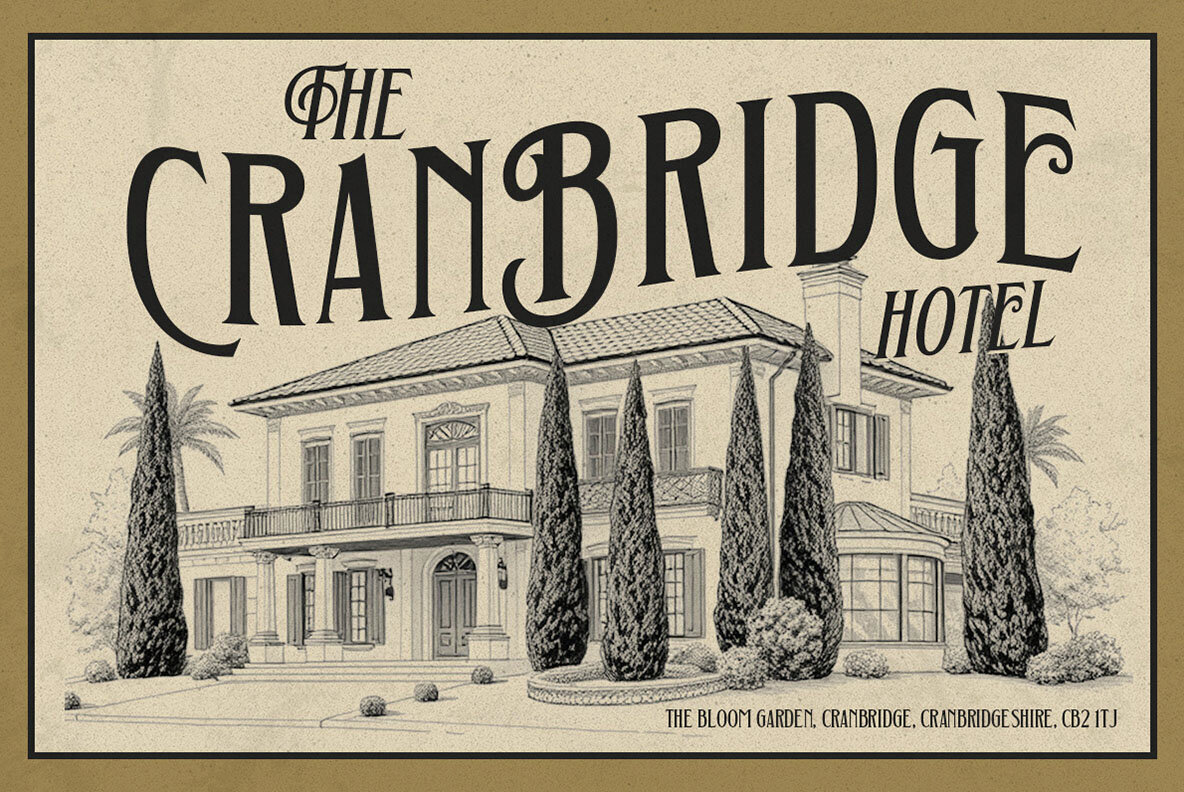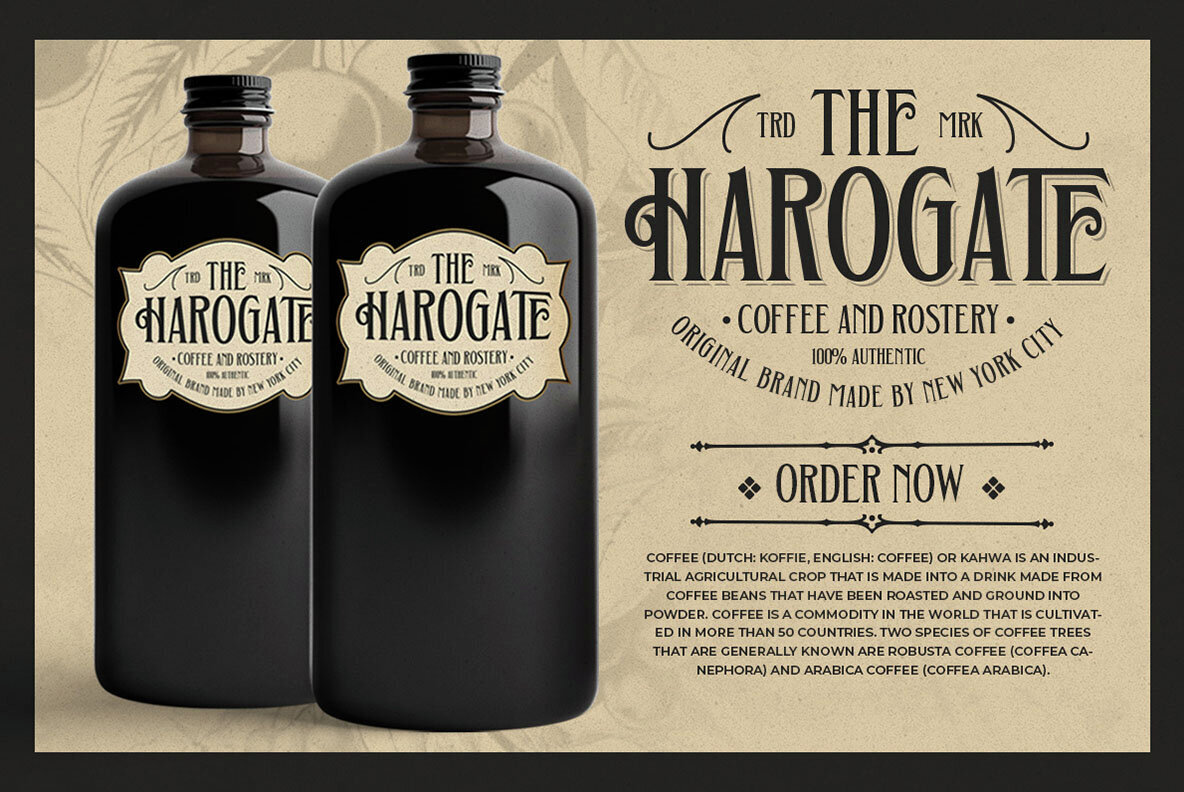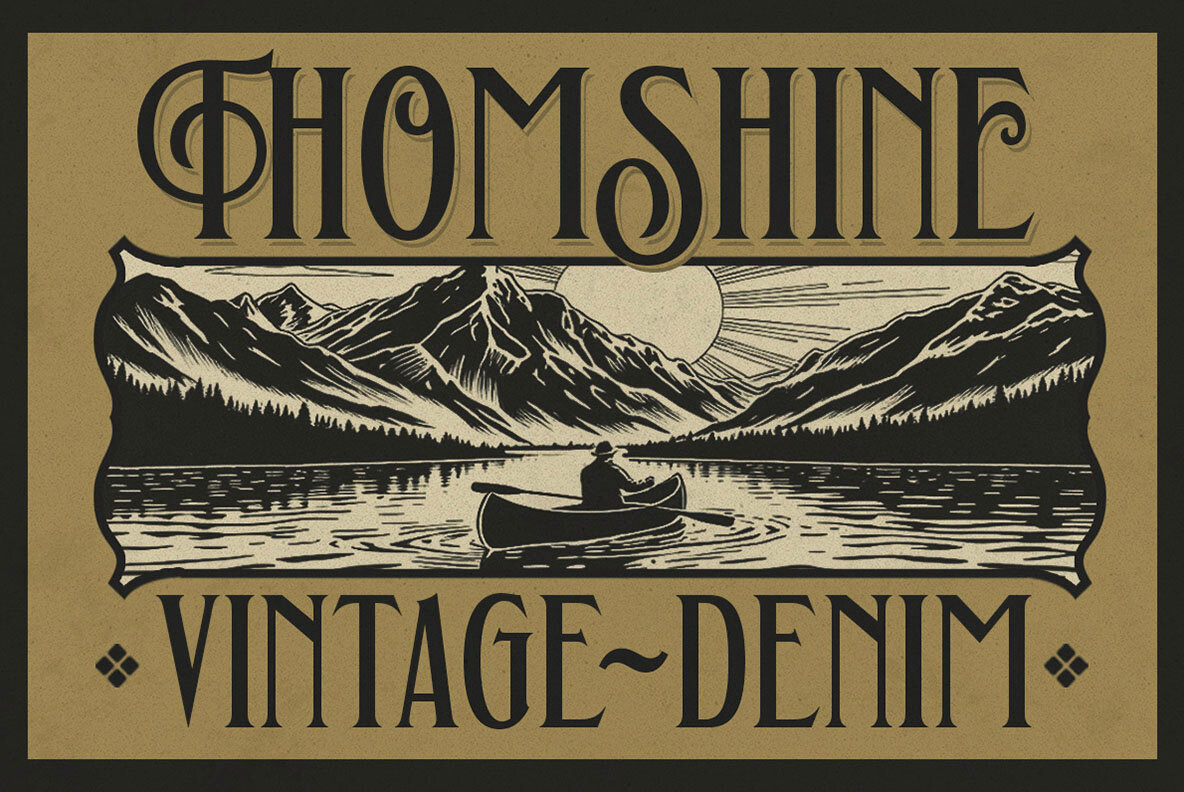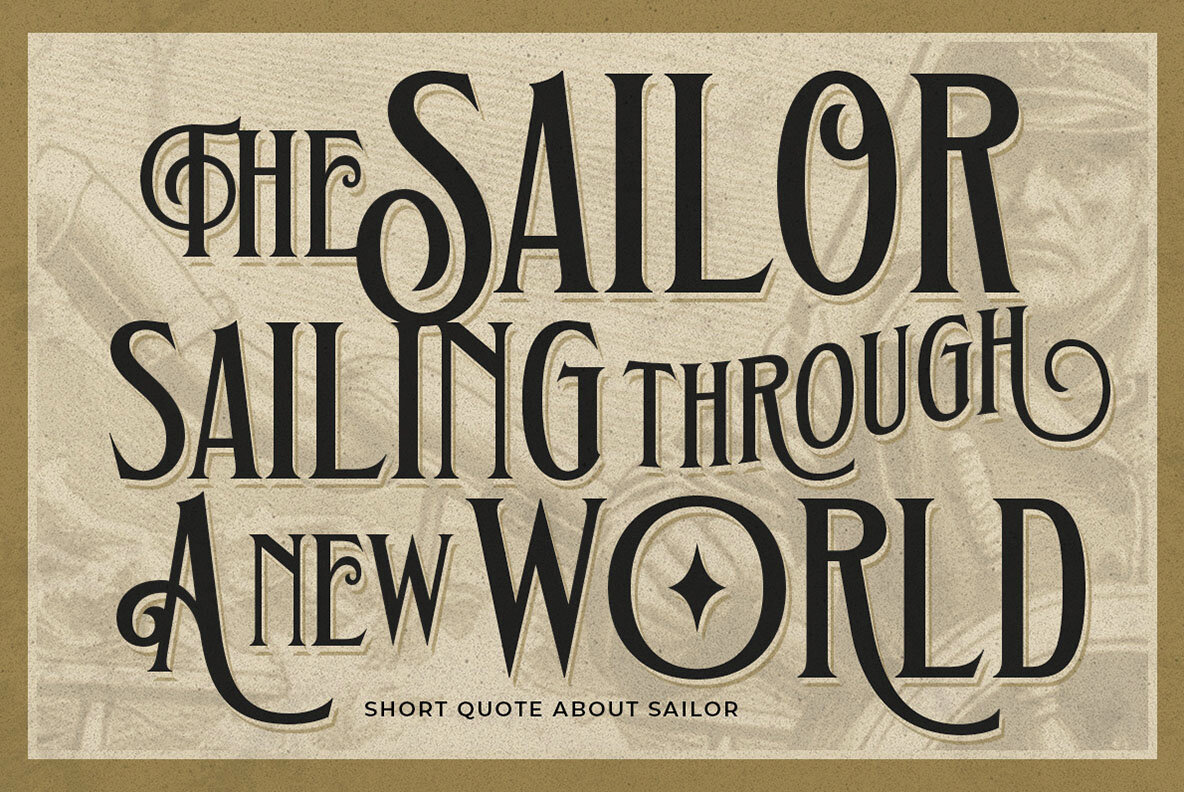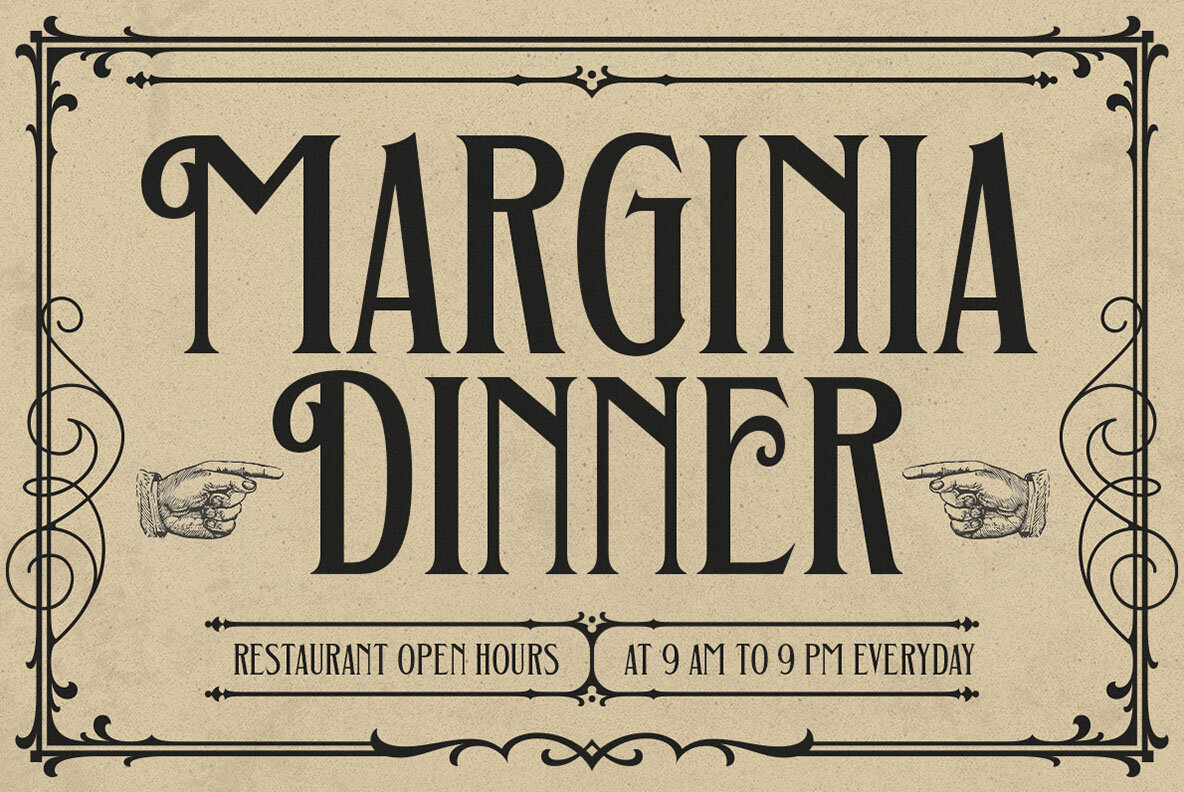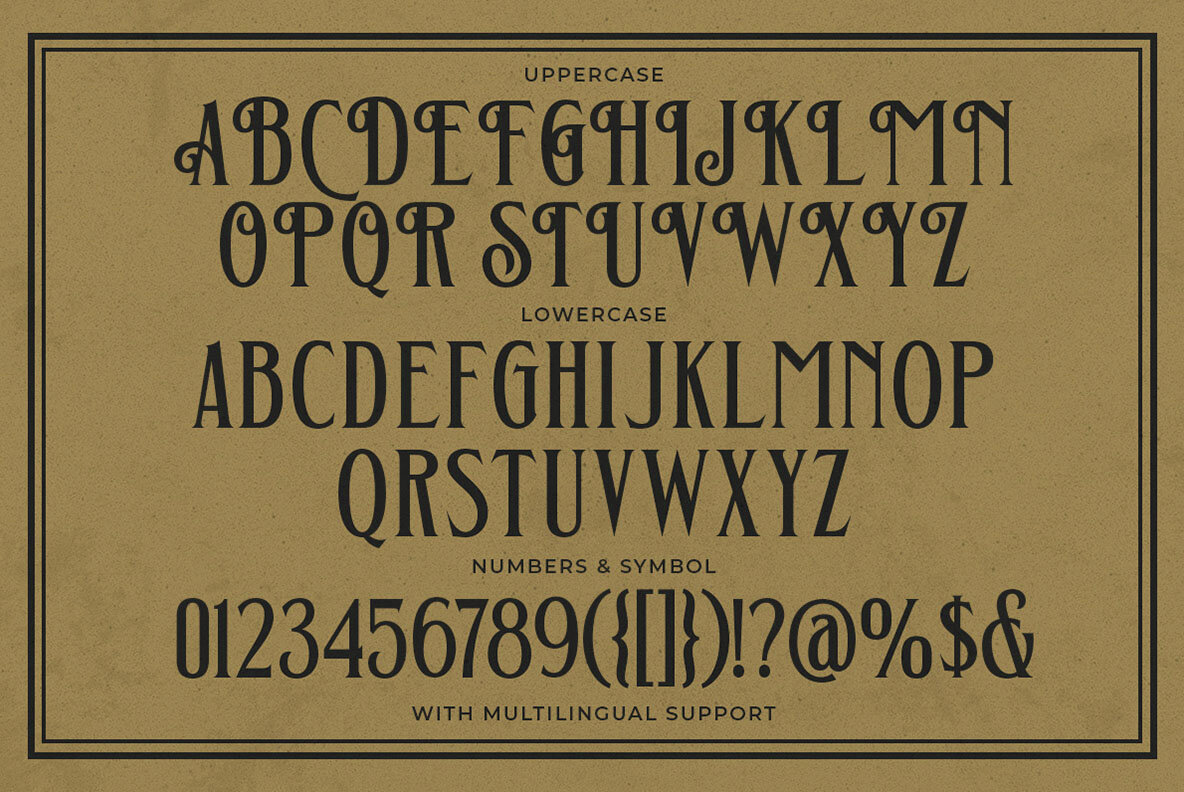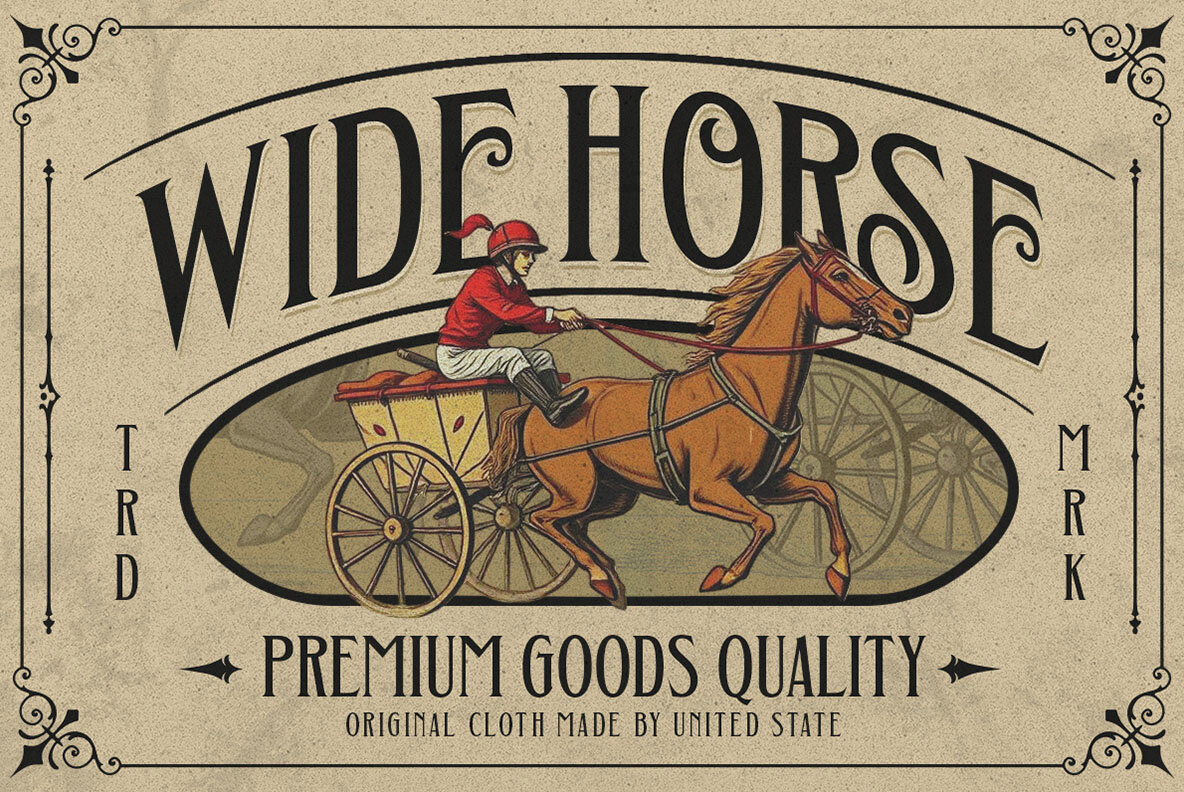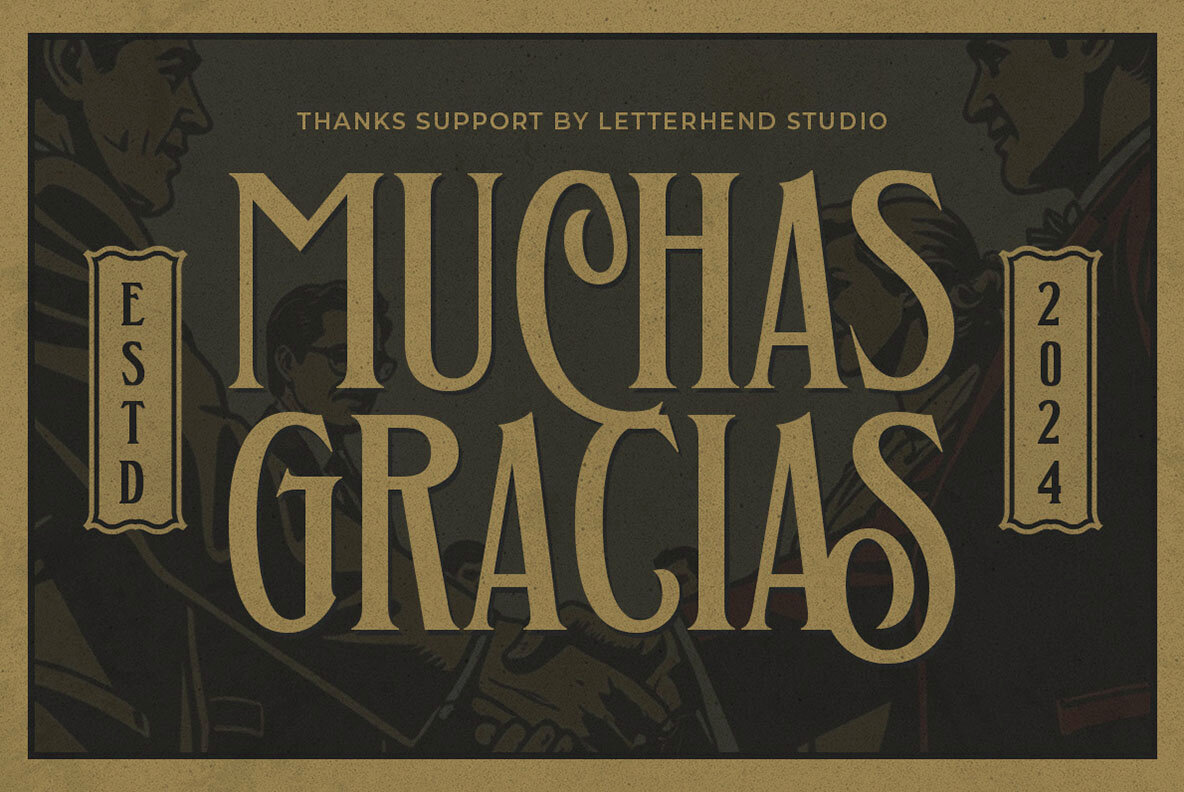
Brakers Stone Font
Brakers Stone Regular
Brakers Stone is an ideal typeface for designers aiming to craft vintage-inspired creations. This font marries bold letterforms with intricate decorative elements, ensuring a timeless appeal suitable for packaging, advertising, or apparel design. Its distinctive style promises to leave a notable impression across various applications.
Features of Brakers Stone include uppercase and lowercase letters, numerals, punctuation, alternate characters, and multilingual support. Additionally, it is PUA encoded for ease of use. To fully experience the versatility of this typeface, we recommend using design programs that support OpenType features and Glyphs panels, such as Adobe applications and Corel Draw, allowing access to all available glyph variations.